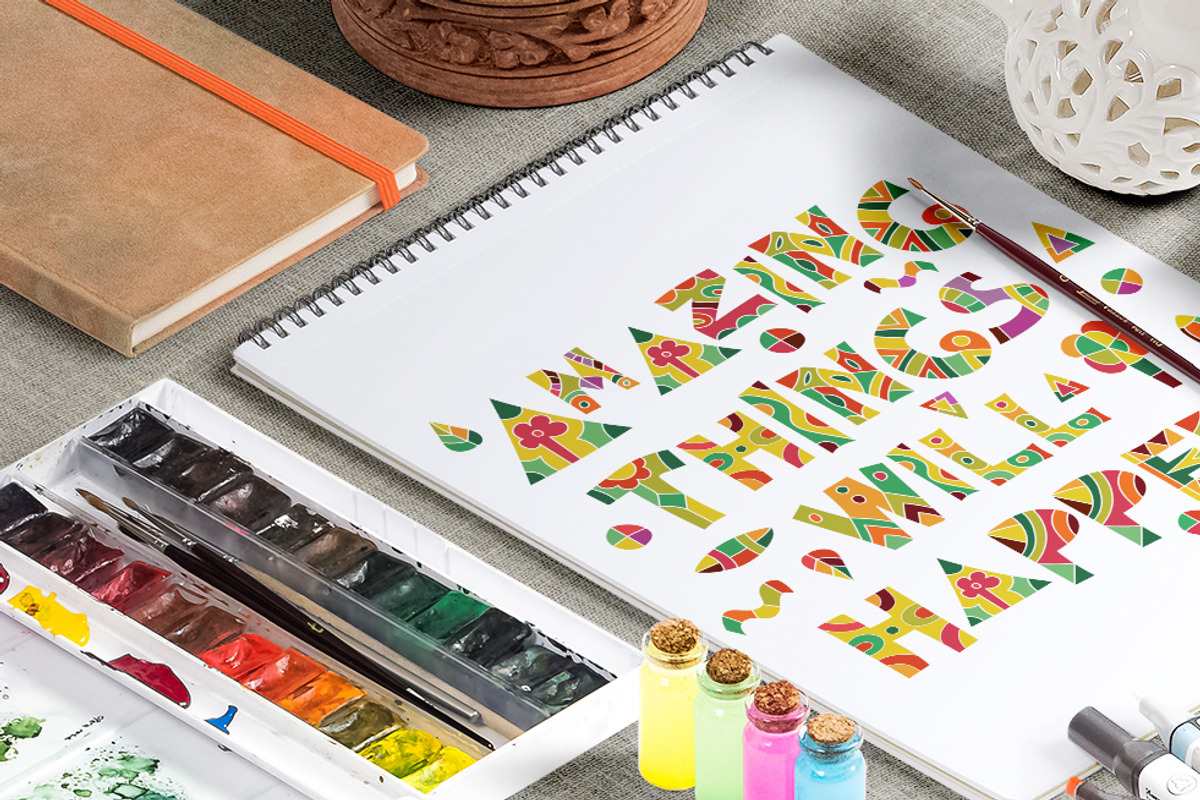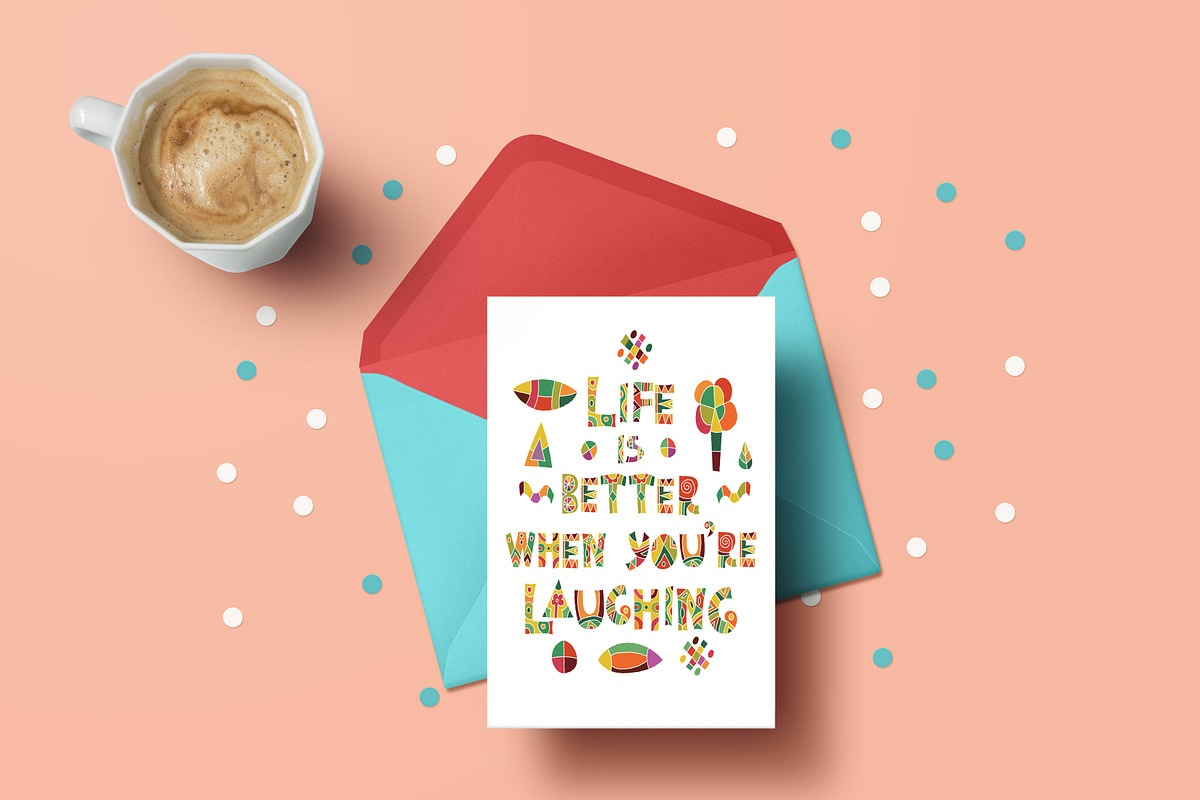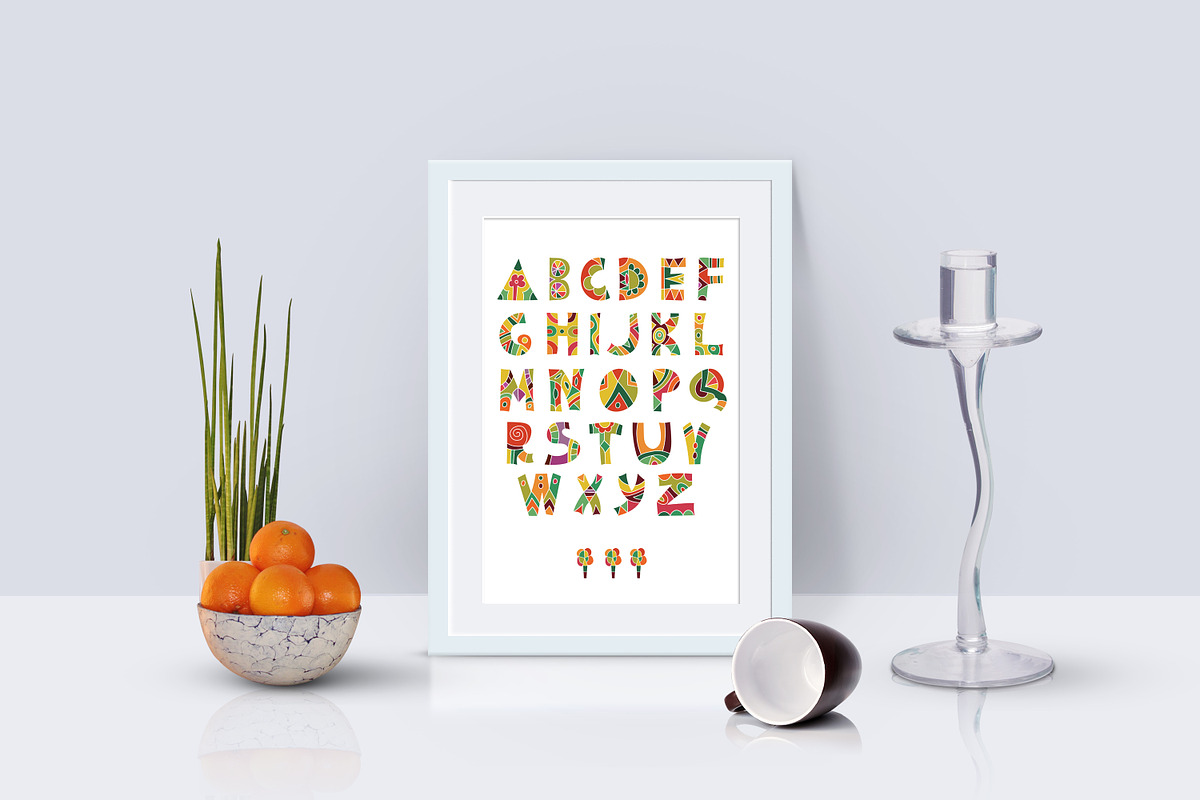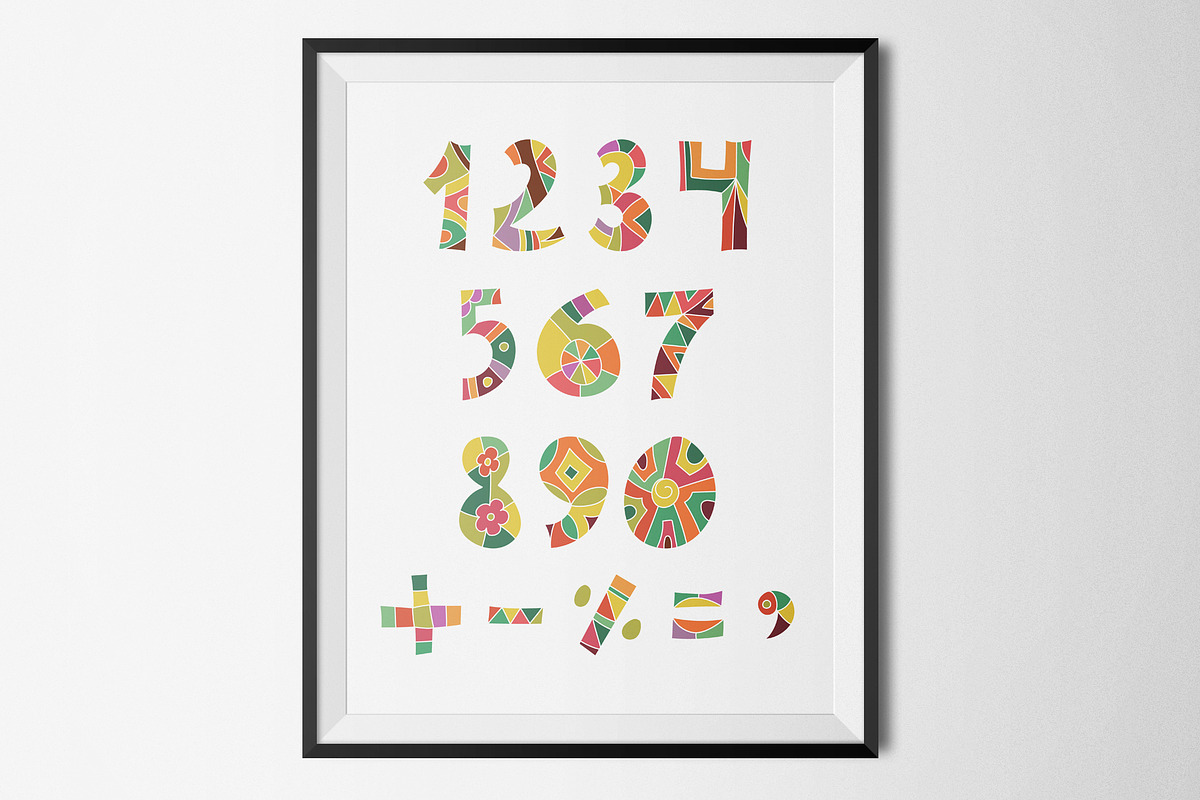
Decorative Fun Font
Decorative Fun Font by Lana Samokhina is a font selected for branding, posters, packaging, typography.
Why Decorative Fun Font is worth a look
Decorative Fun Font by Lana Samokhina fits naturally into Branding, posters, packaging, typography.